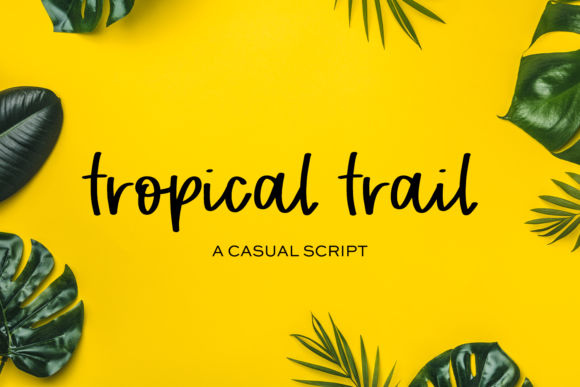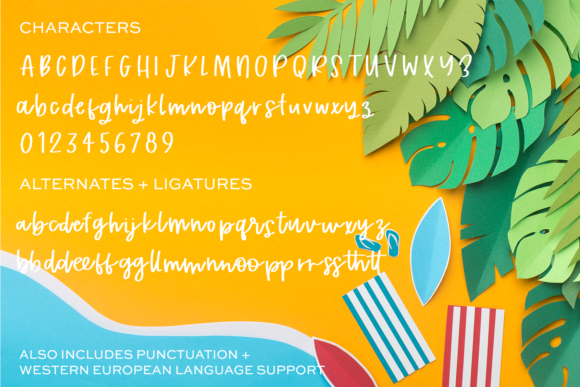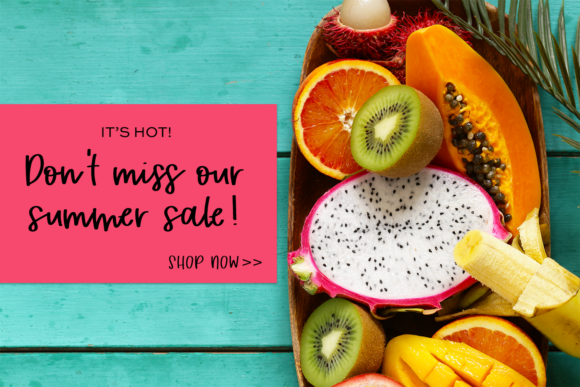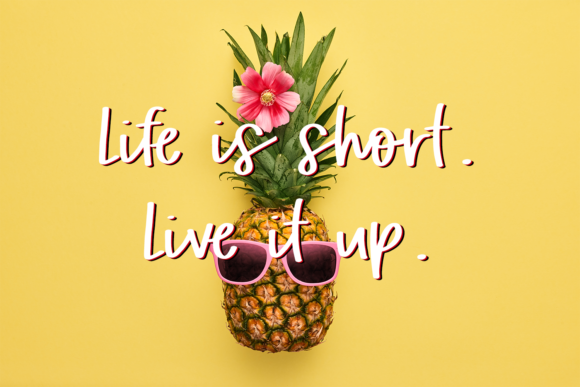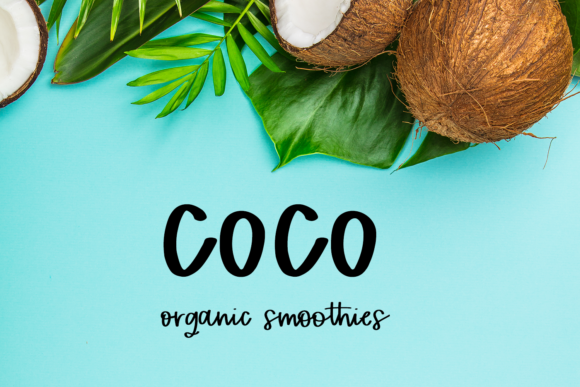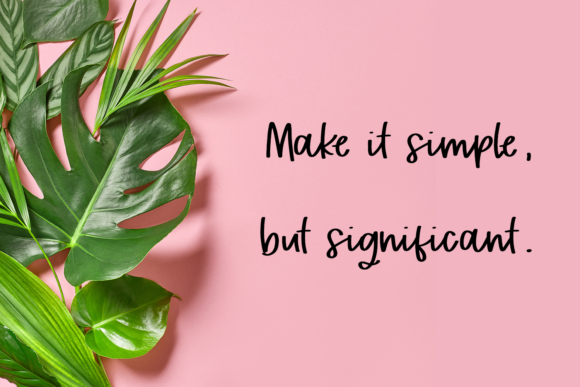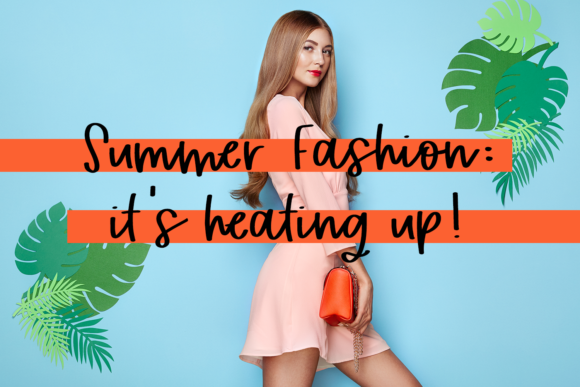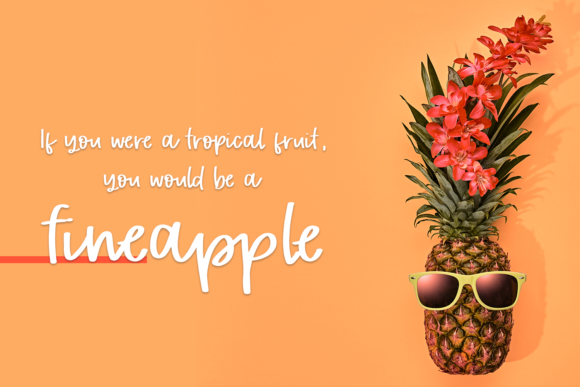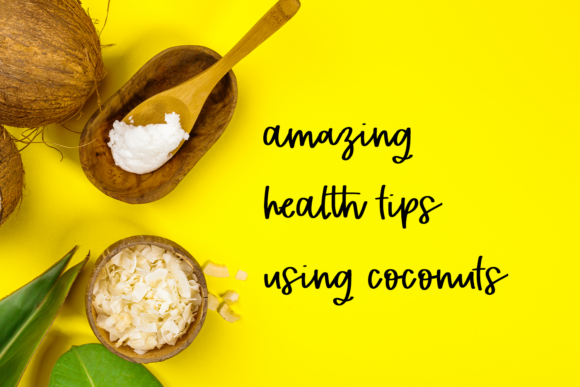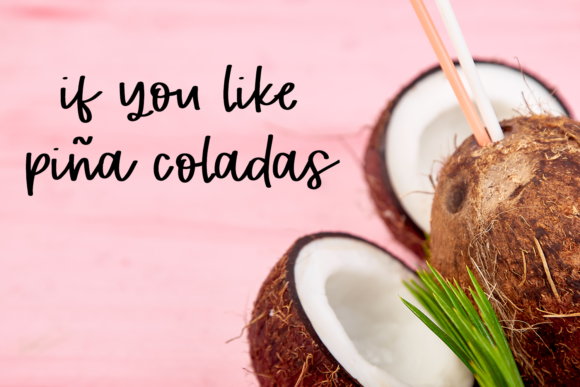
HomeScript FontsTropical Trail Font Script Fonts Tropical Trail Font FacebookXPinterestWhatsApp Tropical Trail Font Poster 2 Tropical Trail Font Poster 3 Tropical Trail Font Poster 4 Tropical Trail Font Poster 5 Tropical Trail Font Poster 6 Tropical Trail Font Poster 7 Tropical Trail Font Poster 8 Tropical Trail Font Poster 9 Tropical Trail Font Poster 10 About Tropical Trail Font Tropical Trail is a fresh and fun handwritten font. It is perfect for all your crafting projects! DOWNLOAD ON CREATIVE FABRICAThis font is sold and delivered by Creative Fabrica. Font Canyon may earn a commission if you buy through this link. People also explored Miny Fellas Font Unique Richela Font Oleandro Font Honeymoon Font Lemonote Font Positive Thingking Font Go Box Font Silicone Young Divas Font 402 0 TagsTropical Trail Font Previous articleAngeleno Brush FontNext articleHomebrewer Sans Font LEAVE A REPLY Cancel reply Comment: Please enter your comment! Name:* Please enter your name here Email:* You have entered an incorrect email address! Please enter your email address here Website: Save my name, email, and website in this browser for the next time I comment. Personal Use Free Soulties Personal Use Free Read more about this font Groomer Personal Use Free Read more about this font Open Store Personal Use Free Read more about this font New Amsterdam Personal Use Free Read more about this font BLOG Transform Your Website: Elevate Your Typography with 7 Best Web Font Generators Are you ready to transform your website's typography from ordinary to extraordinary? Great! Today, we're diving into the world of web font generators, which... Top 10 Handwritten Fonts That Elevate Your Designs Best Fonts for T-Shirt Design – Top 2025 Picks Using Fonts in Digital Marketing: Tips to Strengthen Your Brand Identity